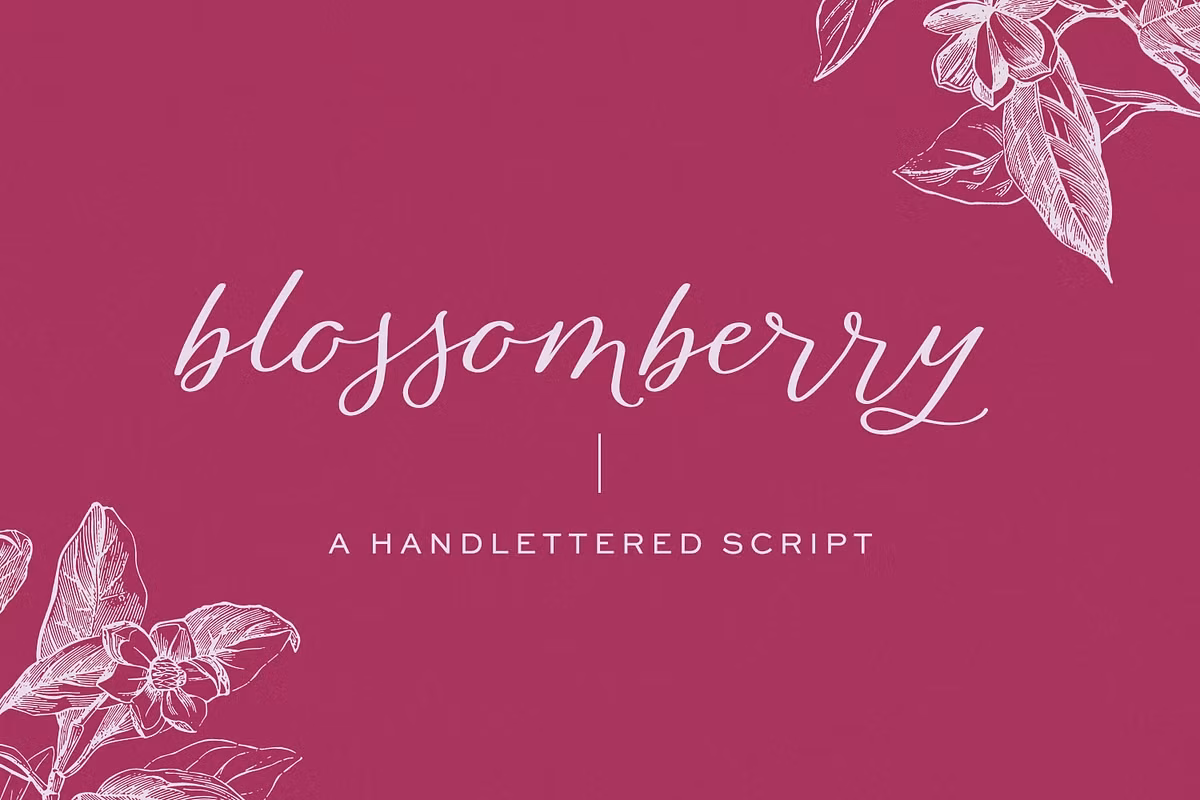
Blossomberry Script Font Free Download
You must purchase this font for commercial use. However, you can download Blossomberry Script Font Free Download for testing purposes. Blossomberry is an elegant and charming script font that captures the fluidity of hand-lettered calligraphy with a modern twist. Perfect for wedding invitations, logos, branding, greeting cards, and any project that requires a sophisticated yet personal touch, this font brings beauty and style to your typography.
With its flowing curves, stylish letterforms, and delicate details, Blossomberry Script Font adds a romantic and elegant feel to your designs. Whether you're working on a luxury brand, creating an event invitation, or designing a logo, this font will add a graceful, artistic touch to your work.